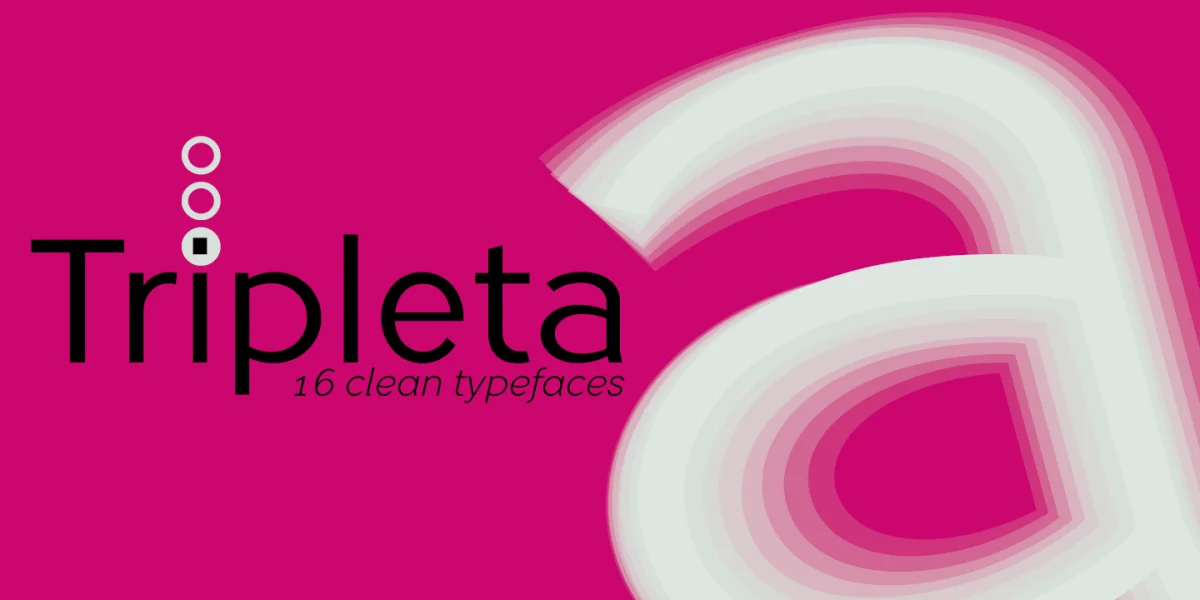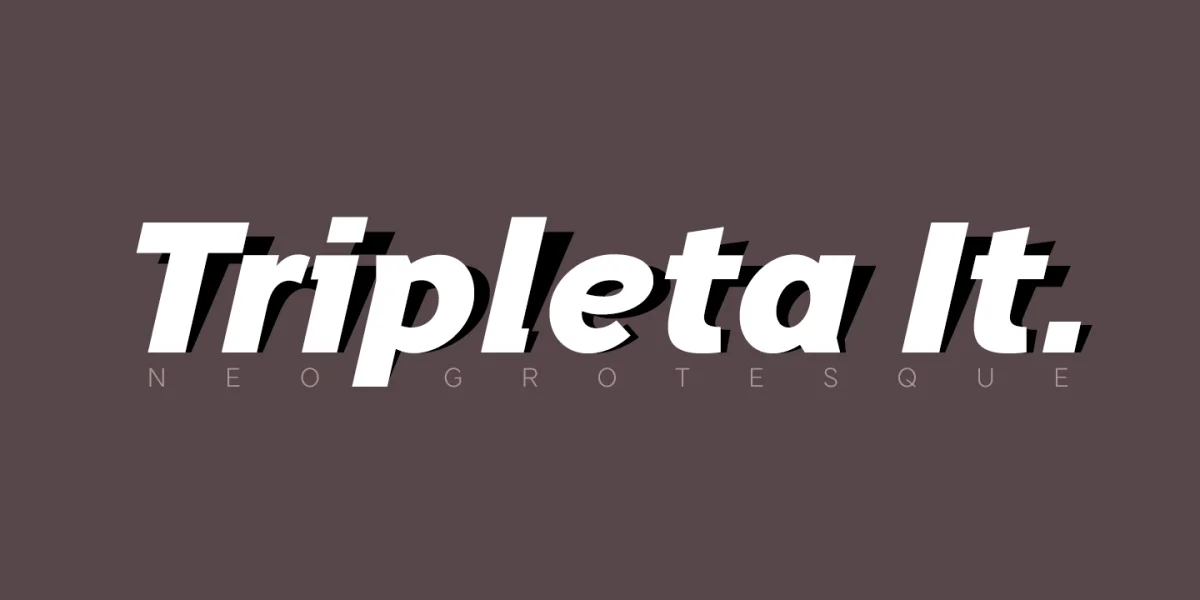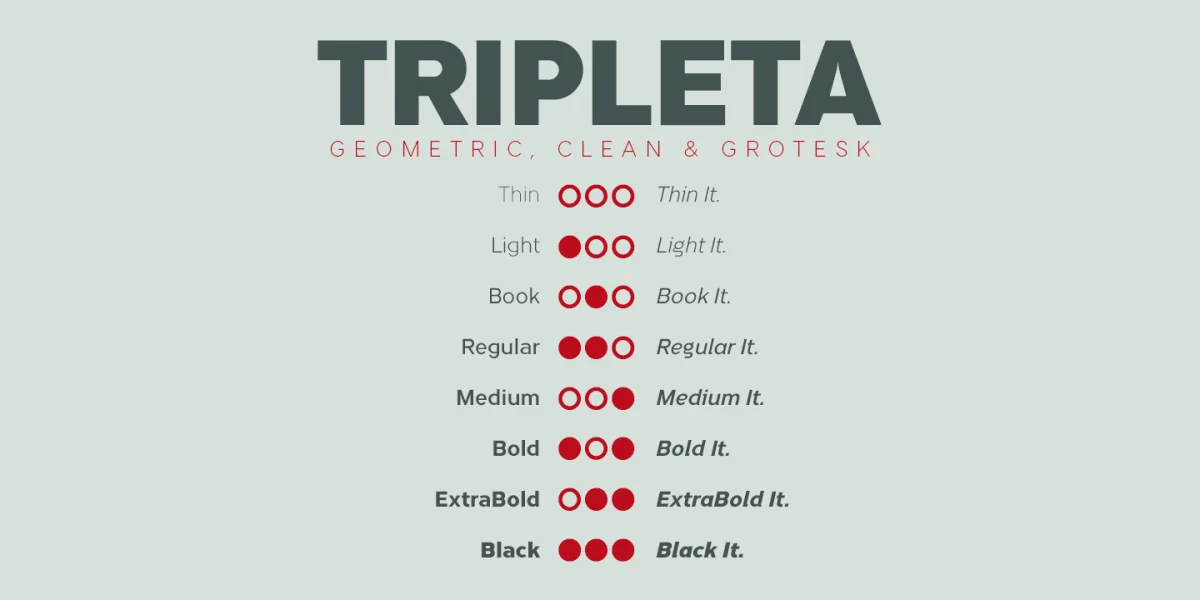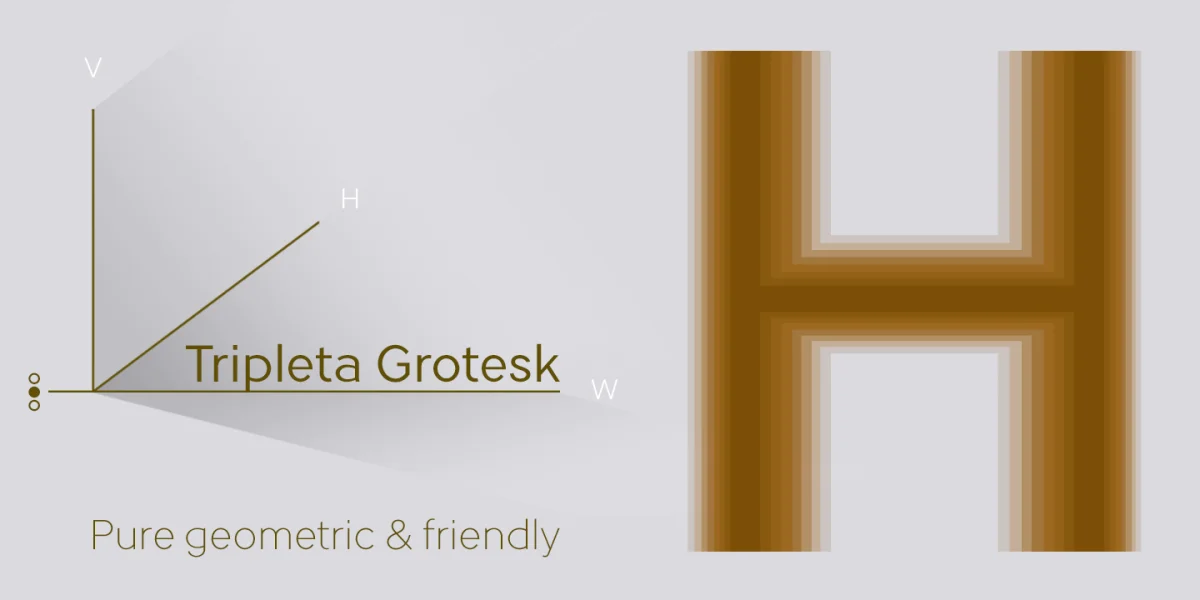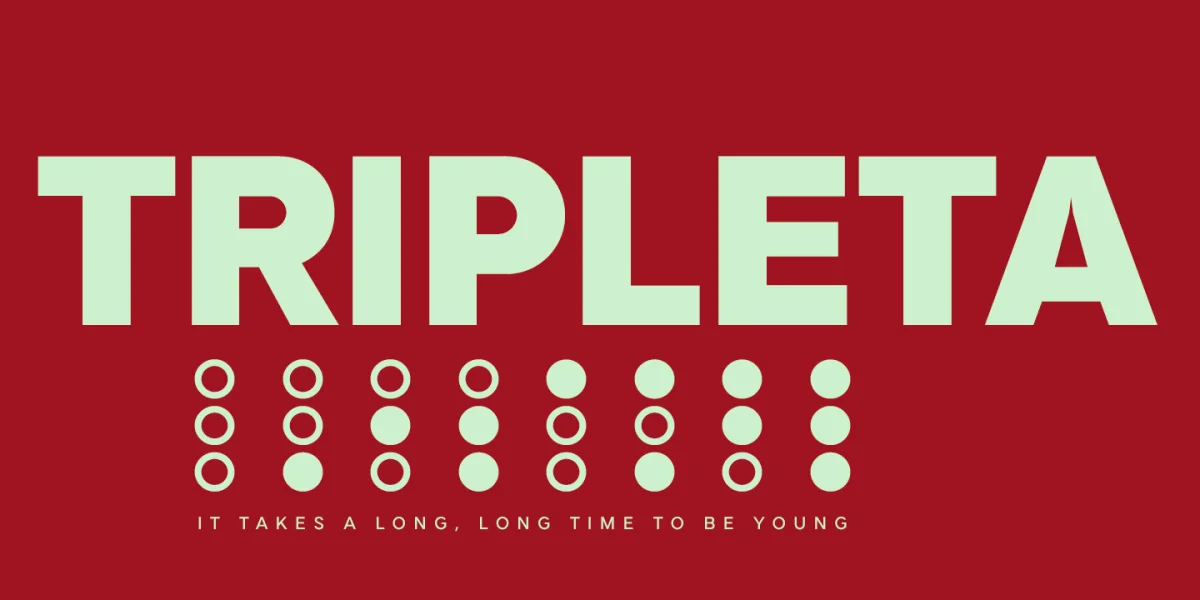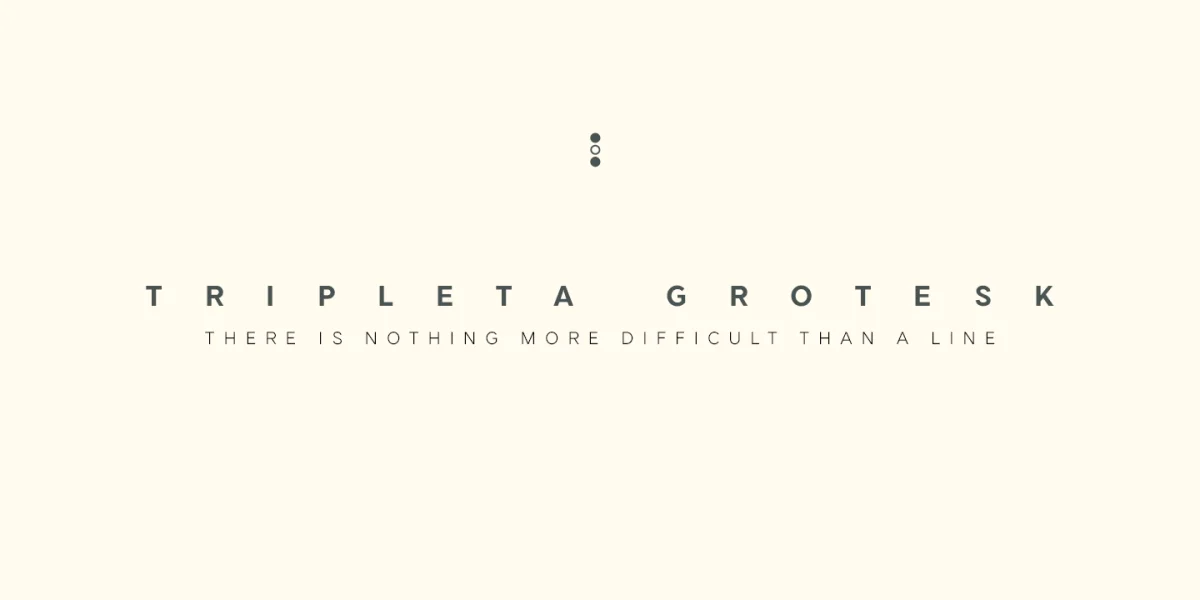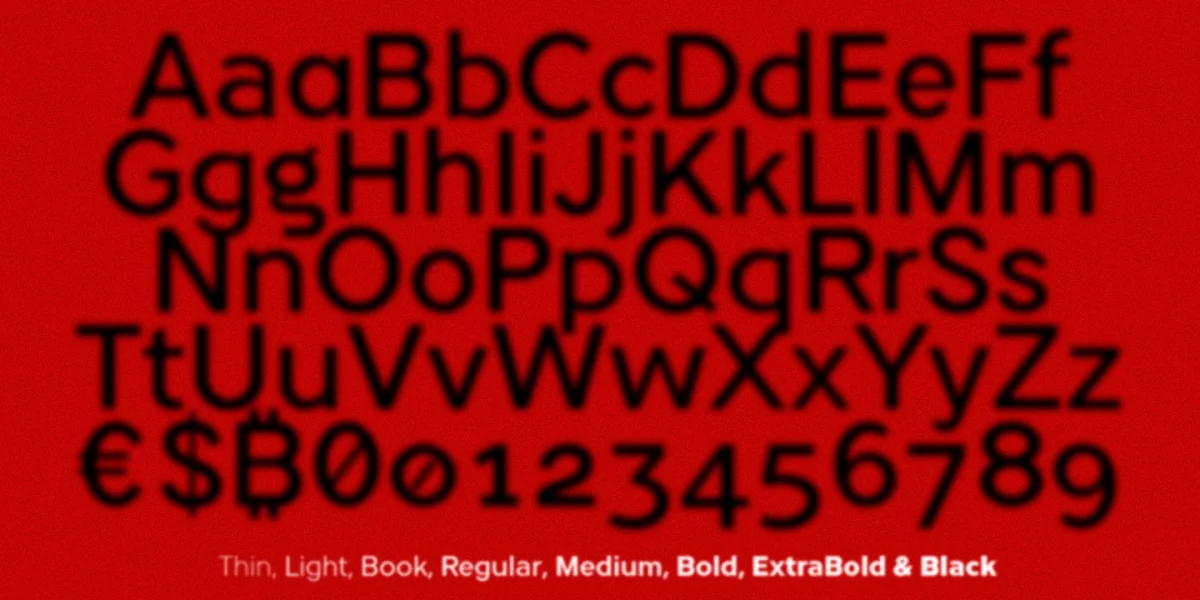
Tripleta Grotesk is a 16-member typographic family with a very clean and corporate look.Tripleta is of pure geometric construction basing the proportions, with extreme care, of each letter based on my theory of the three axes.The metric and configuration of the kerning has been exhaustive for maximum balance and readability. Italic versions have their own stylized lowercase letters with an inclination of 13 degrees.All fonts have advanced Open Type functions and the Bitcoin symbol (b#).